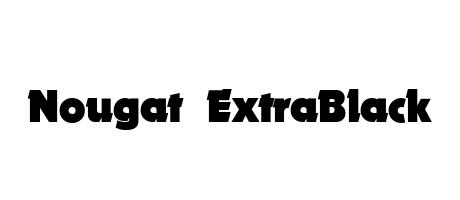
Nougat
By Dieter Steffmann
Nougat ExtraBlack: A bold, assertive typeface, Nougat ExtraBlack commands attention. Its chunky, slightly condensed letters convey a sense of strength and confidence. The sharp angles and strong verticality suggest power and modernity, while still retaining a degree of readability. It’s a font perfectly suited for headlines and branding needing impactful presence.